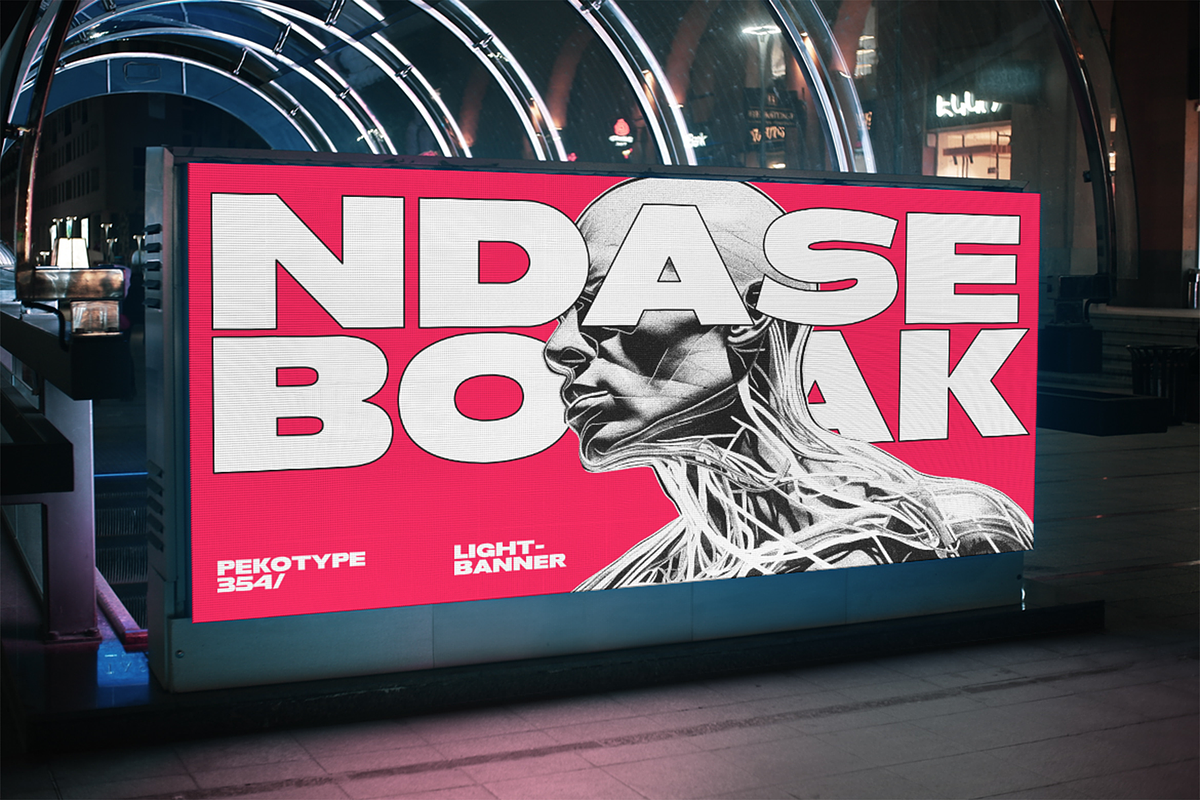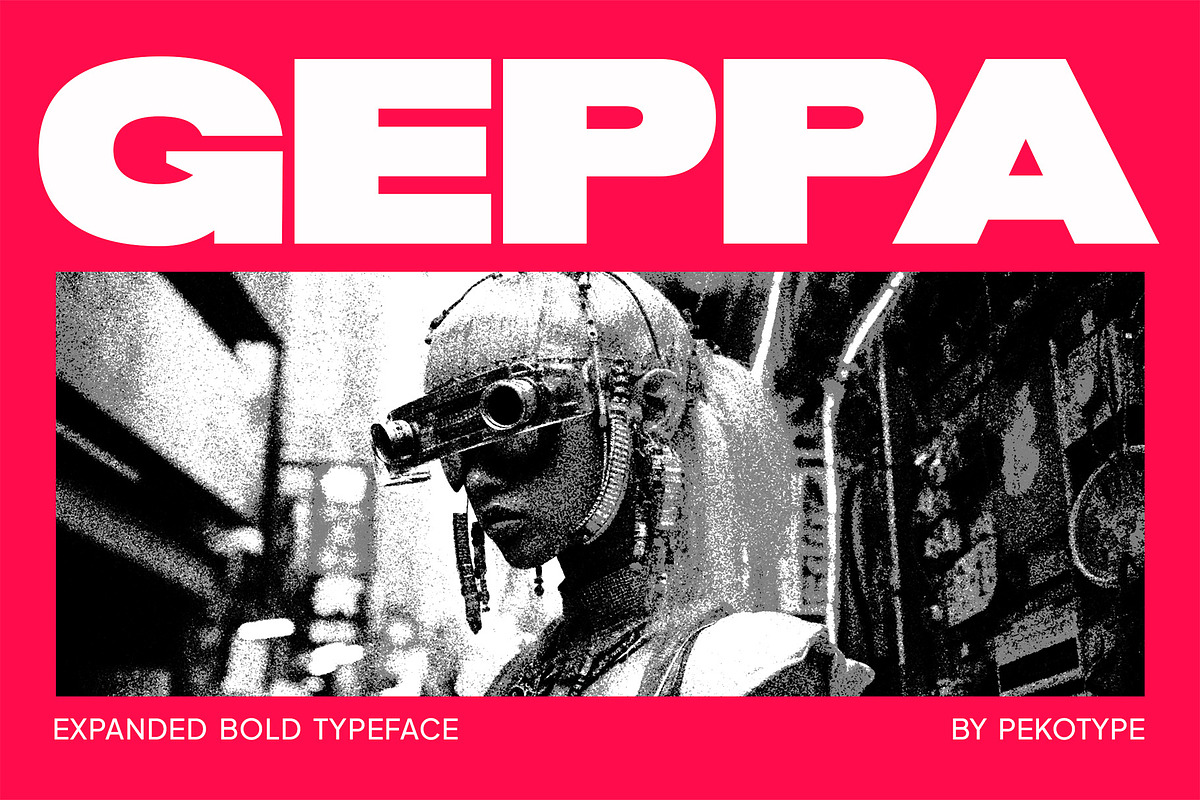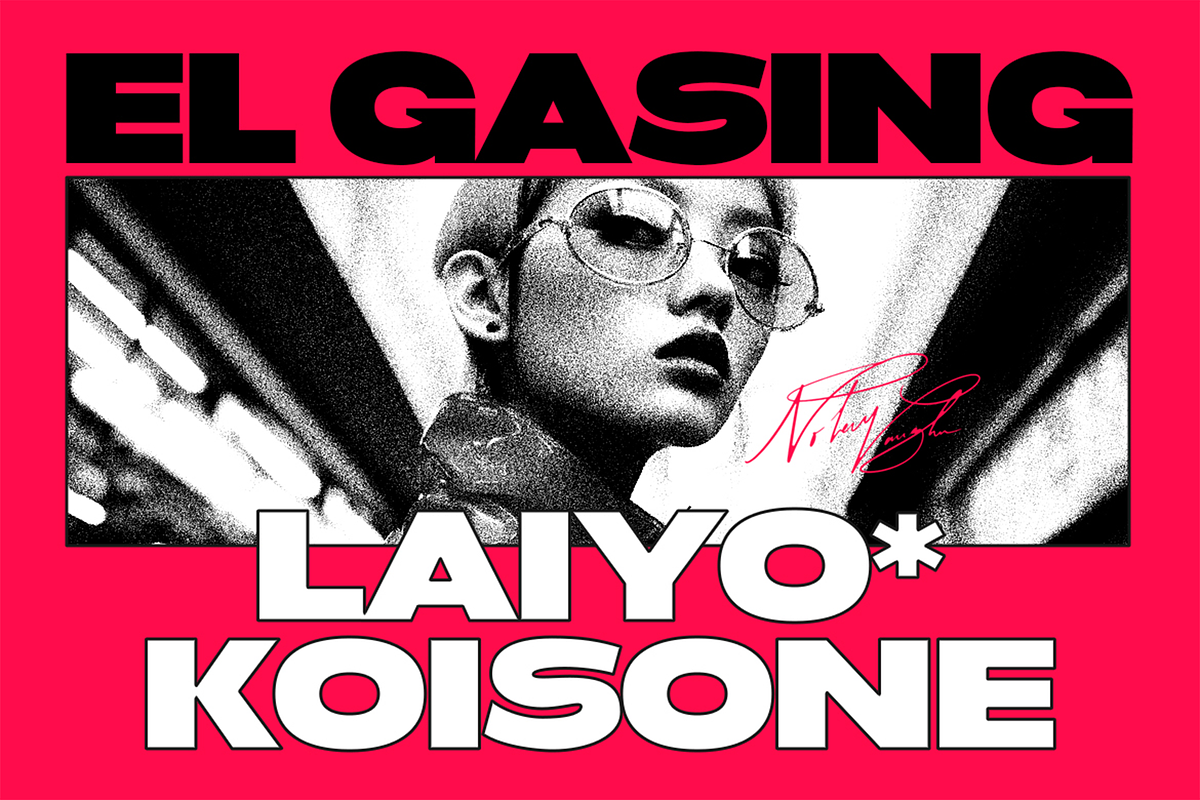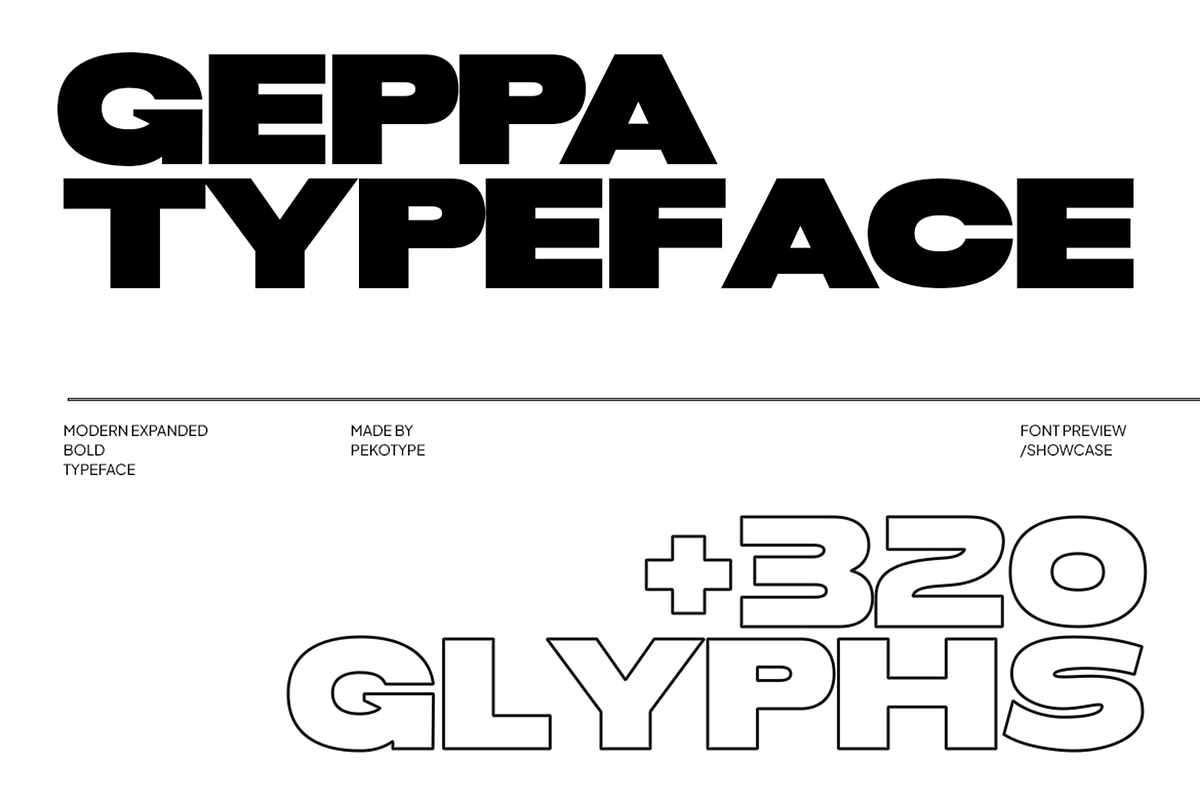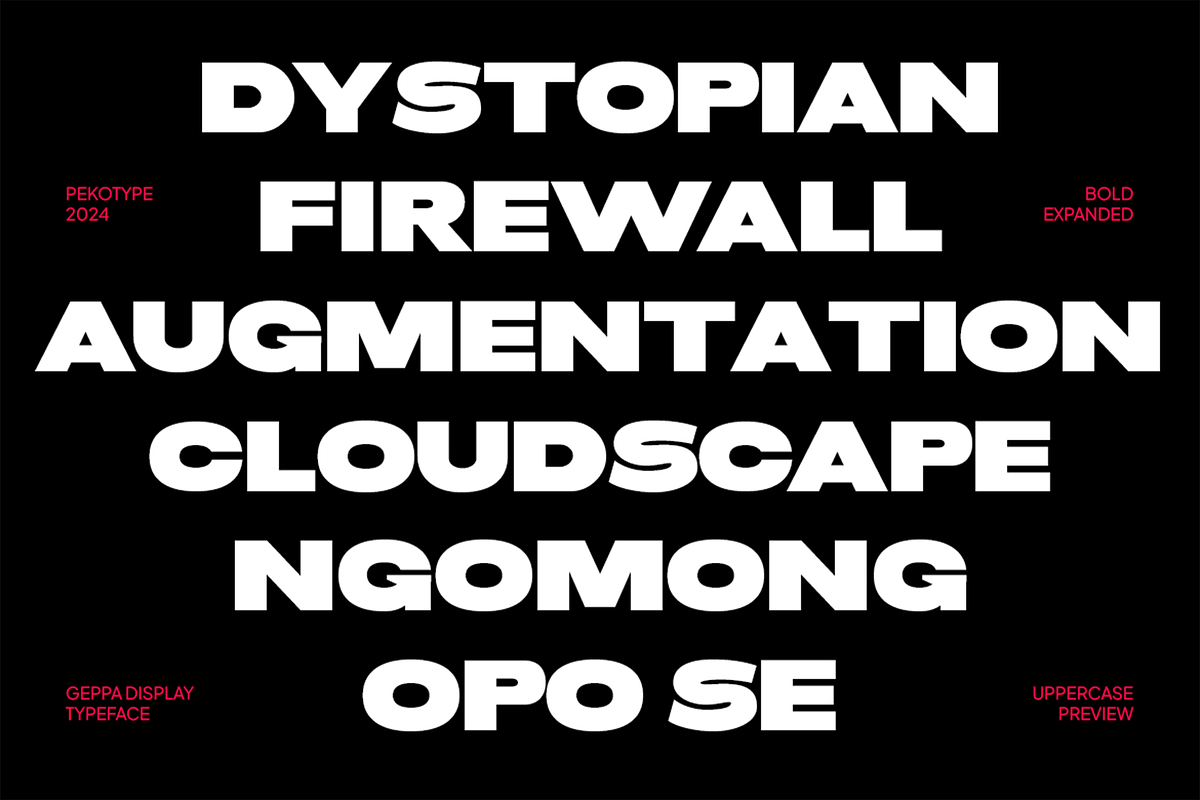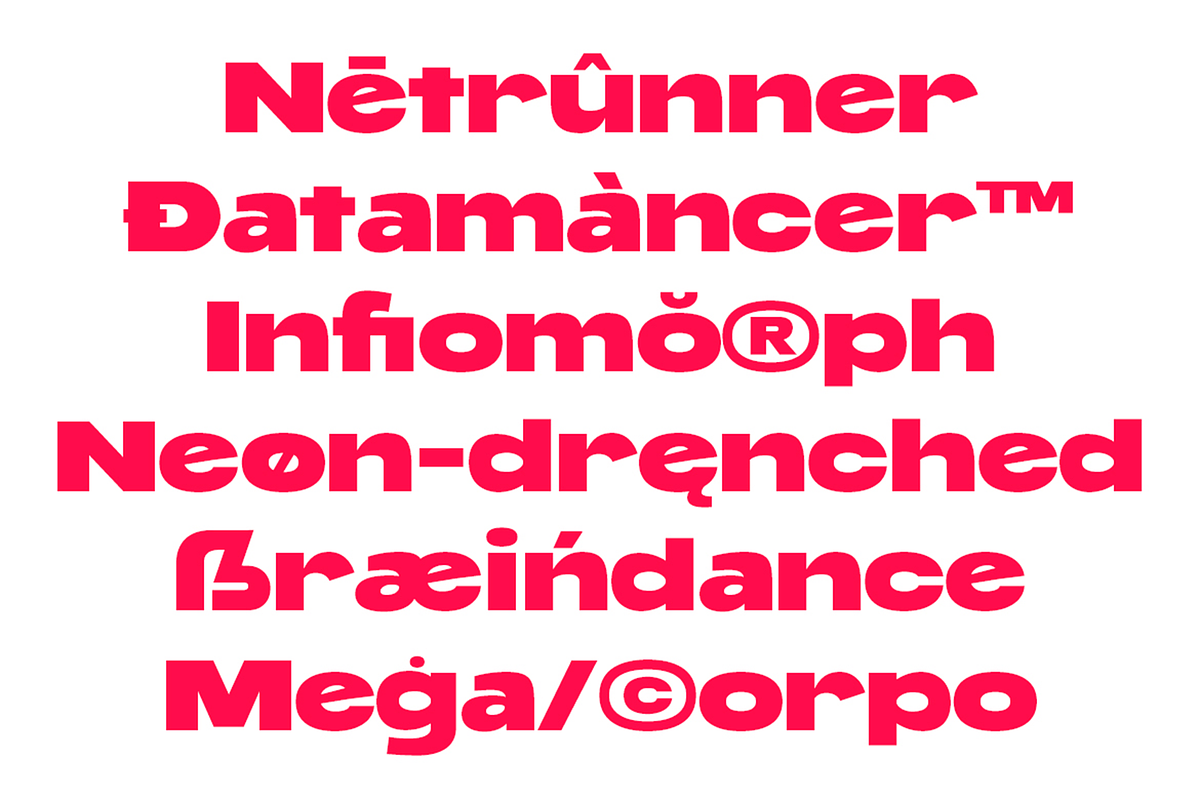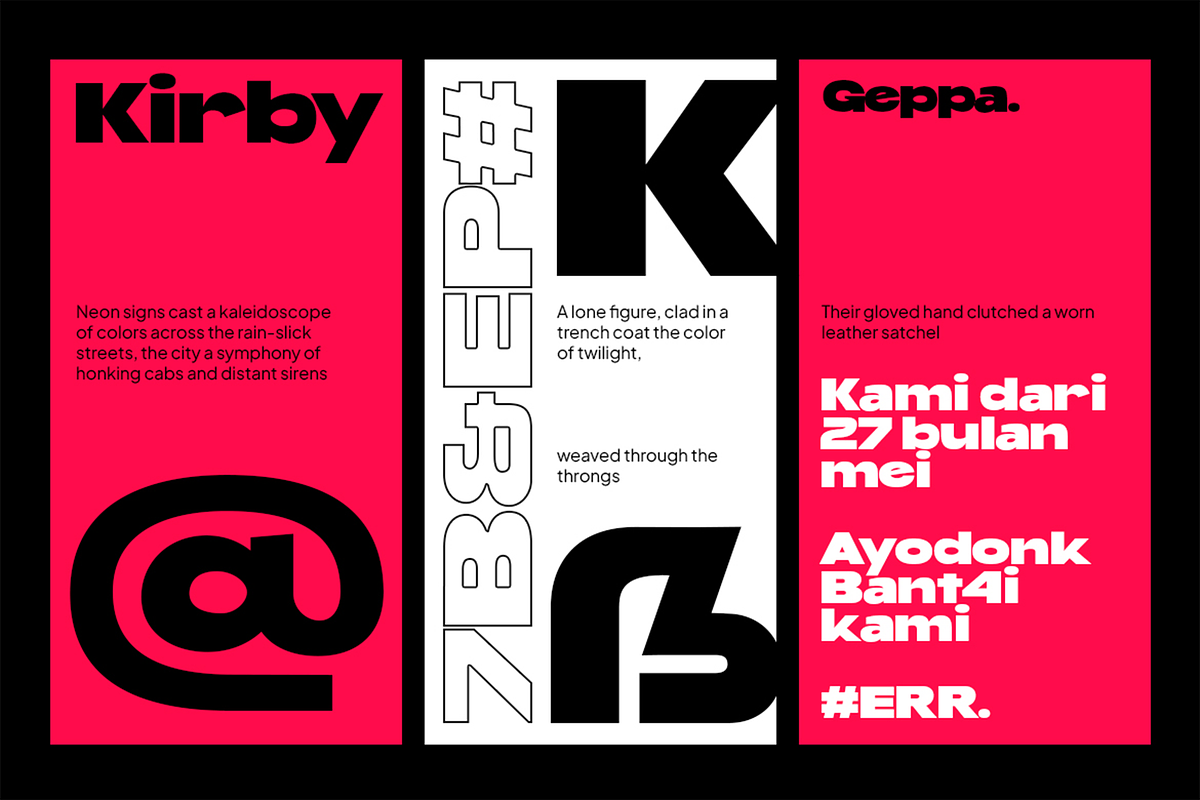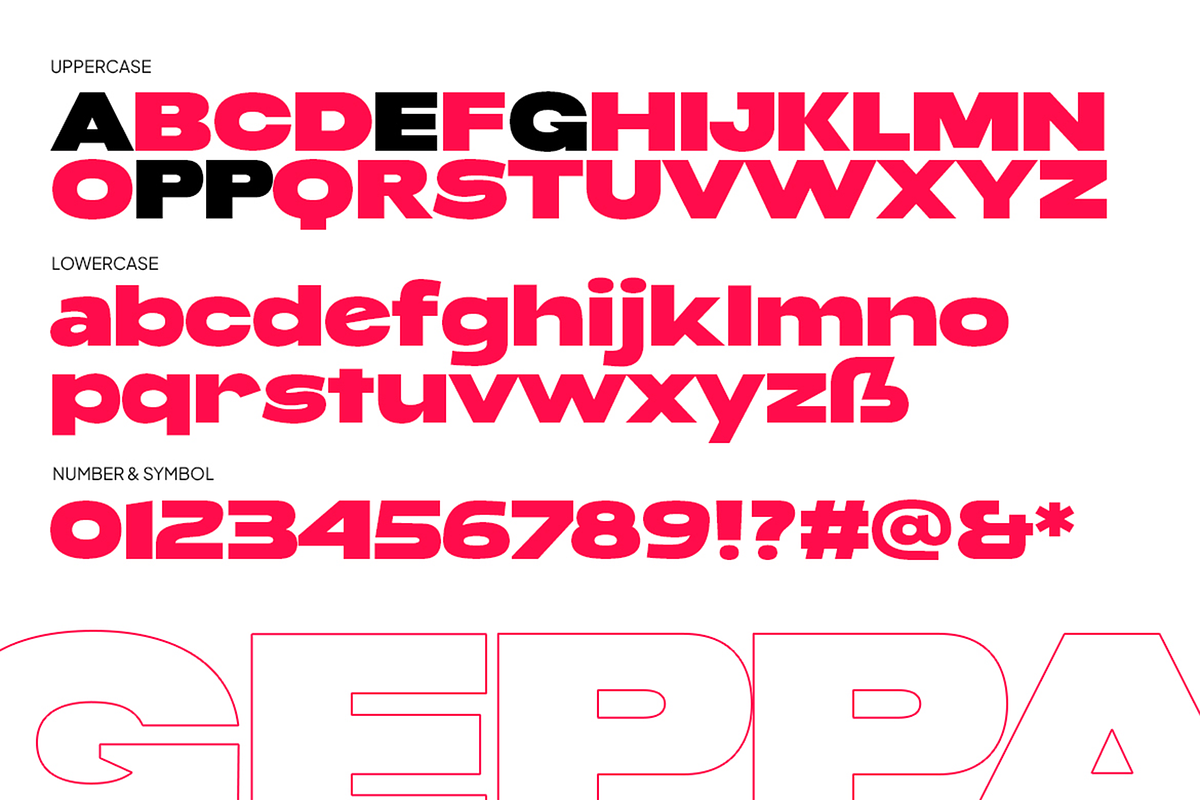
Geppa - Expanded Sans Serif
GEPPA is a modern and bold expanded display typeface designed to make a striking impression with its wide, geometric letterforms and clean lines. Ideal for use in headlines, posters, branding, and advertising, GEPPA's strong visual presence ensures that any message stands out with clarity and impact. For example, GEPPA can be used in a bold magazine cover title, an eye-catching billboard ad, or a distinctive logo design, adding a touch of contemporary sophistication to each application.